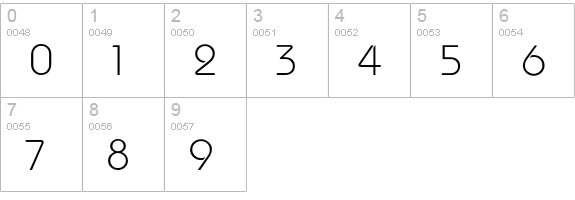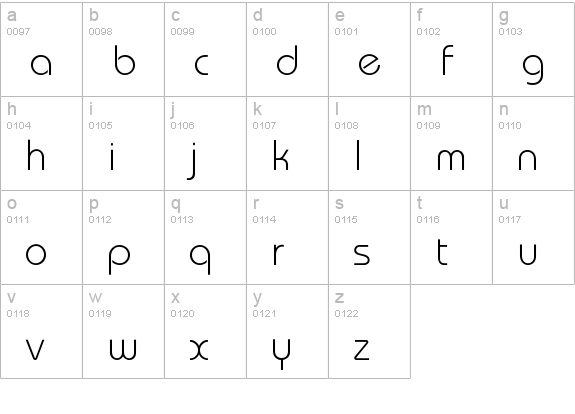
BauhausLight Font Details
The BauhausLight font is a modern and elegant typeface that exudes sophistication and simplicity. Its sleek lines and minimalist design make it perfect for a wide range of design projects, from branding to editorial design. The font's clean and legible characters make it easy to read in both print and digital formats, adding a touch of class to any project. Best of all, the BauhausLight font is available for free download at FontsMarket.com. This means you can easily access and use this stylish typeface in your designs without any cost. Whether you're a professional designer or a hobbyist looking to spruce up your projects, BauhausLight is a fantastic addition to your font library. Download it today and elevate your designs with this sophisticated and versatile typeface.